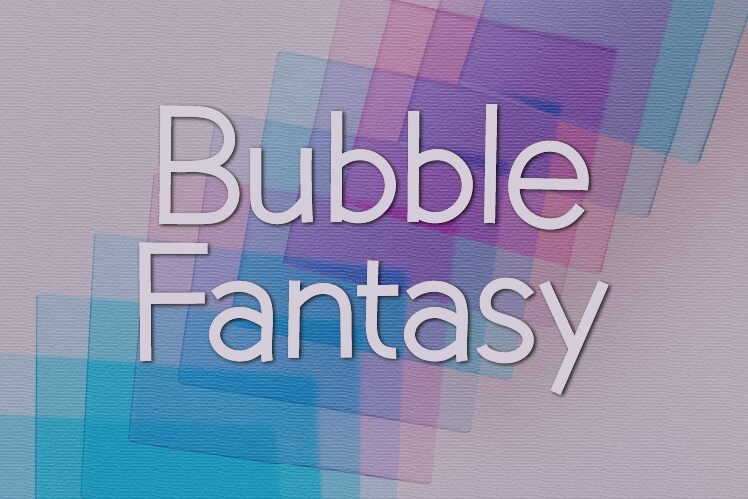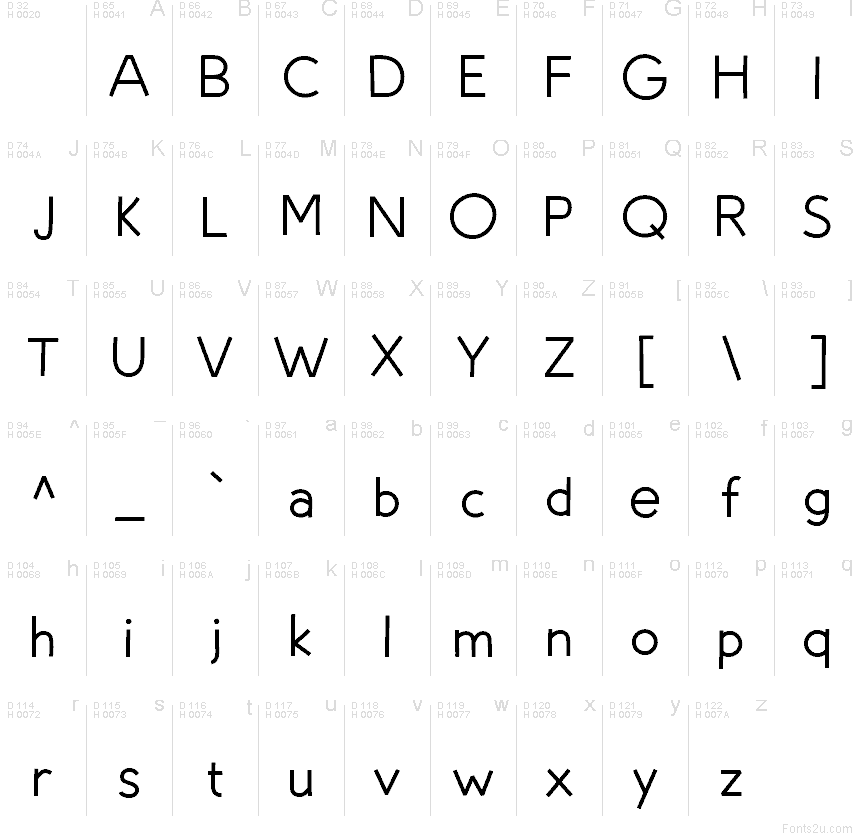
Bubble Fantasy
Bubble Fantasy font by HannaBie Creative Studio is a free comic display typeface that turns simple words into soft, airy bubbles. Its rounded strokes, open shapes, and smooth curves give every line a light, buoyant feel, like letters drawn with a felt-tip pen on glossy paper. The rhythm is clean and steady, so even playful headlines stay legible and uncluttered at larger sizes.
Using Bubble Fantasy, this free font shines on kids’ book covers, toy packaging, fun logos, birthday invitations, social media posts, and cheerful posters. The friendly forms instantly signal “fun” without feeling messy or chaotic. Pair Bubble Fantasy with a plain sans serif for body copy, and let these bubbly letters take center stage in titles, banners, and short phrases.